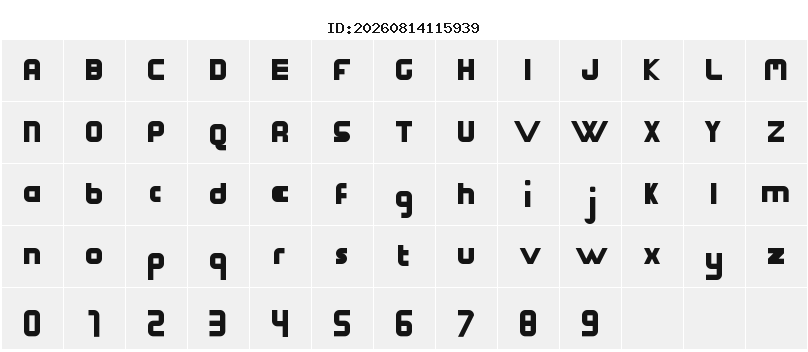
• Font Name: Structure Sans
• Full Font Name: Structure Sans Regular
• Copyright: Copyright Casimir Gaul-Berrard 2016
• Designer: Casimir Gaul-Berrard
• Description: “Structure Sans” was built with FontStruct
About Structure Sans.ttf
Structure Sans.ttf is a modern, elegant sans-serif font designed for ultimate readability and visual harmony. Perfect for branding, headlines, web design, and print materials.